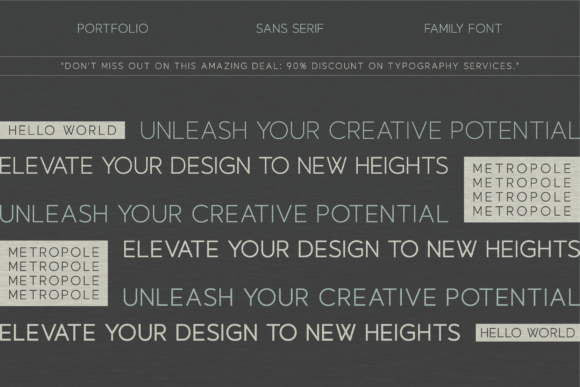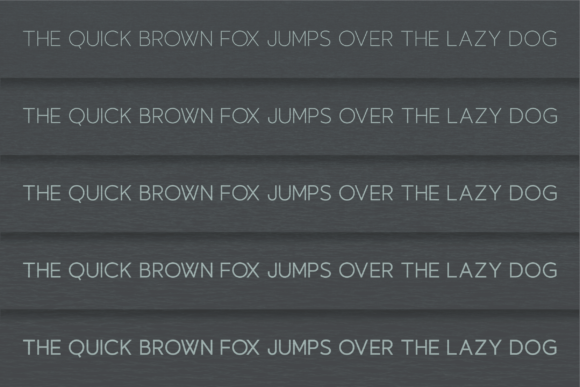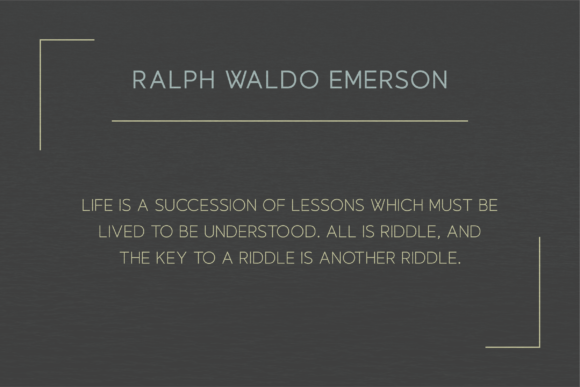
Introduction to Metropole Font
Have you ever stared at a blank canvas, eager to bring a creative project to life, only to be held back by the perfect font? It’s that moment when the entire design hangs in the balance, and the right choice can make all the difference. For designers, finding the perfect font can be a daunting task, but what if I told you that there’s a game-changing solution waiting for you? Say hello to the Metropole Font, a high-quality sans serif collection that’s about to revolutionize your design endeavors.
With its five unique weights and flawless precision, the Metropole Font is the ultimate design resource for any creative project. Whether you’re working on a glossy magazine, a logo, or an alluring film poster, this font family seamlessly elevates your design to new heights. And the best part? It’s available for free download, complete with a transparent background that allows for endless possibilities. Get ready to experience the refined synergy of elegance and minimalism with the Metropole Font.
Key Features of Metropole Font
- High-quality font design with a unique, modern aesthetic, making it perfect for creative projects and design resources.
- Designed with a clean and minimalist approach, making it ideal for use in logos, branding, and other design applications.
Honest Review: Metropole Font
As a designer, I’m always on the lookout for high-quality fonts that can elevate my creative projects. I recently came across the Metropole Font, and I’m excited to share my thoughts on this design resource.
- ✨ Sleek and modern aesthetic that’s perfect for urban-themed designs
- ✨ Clean and legible typography that’s easy to read even at small font sizes
- ⚠️ Limited character set, which may not be suitable for projects that require a wide range of languages
- ⚠️ Not ideal for use in small text sizes, as it can become difficult to read
Overall, I’m impressed with the Metropole Font’s modern design and versatility. While it may not be suitable for every project, it’s an excellent choice for urban-themed designs and creative projects that require a sleek, modern aesthetic. If you’re looking for a high-quality font that won’t break the bank, the Metropole Font is definitely worth checking out.
Tips for Getting the Most Out of Metropole Font
Use the Metropole Font in conjunction with other high-quality design resources to create a cohesive and professional-looking design. Experiment with different font sizes, colors, and styles to get the most out of this versatile font.
The Metropole Font is ideal for creative projects, such as graphic design, branding, and marketing materials. It is also suitable for presentations, documents, and websites that require a high-quality and professional-looking font with a transparent background.